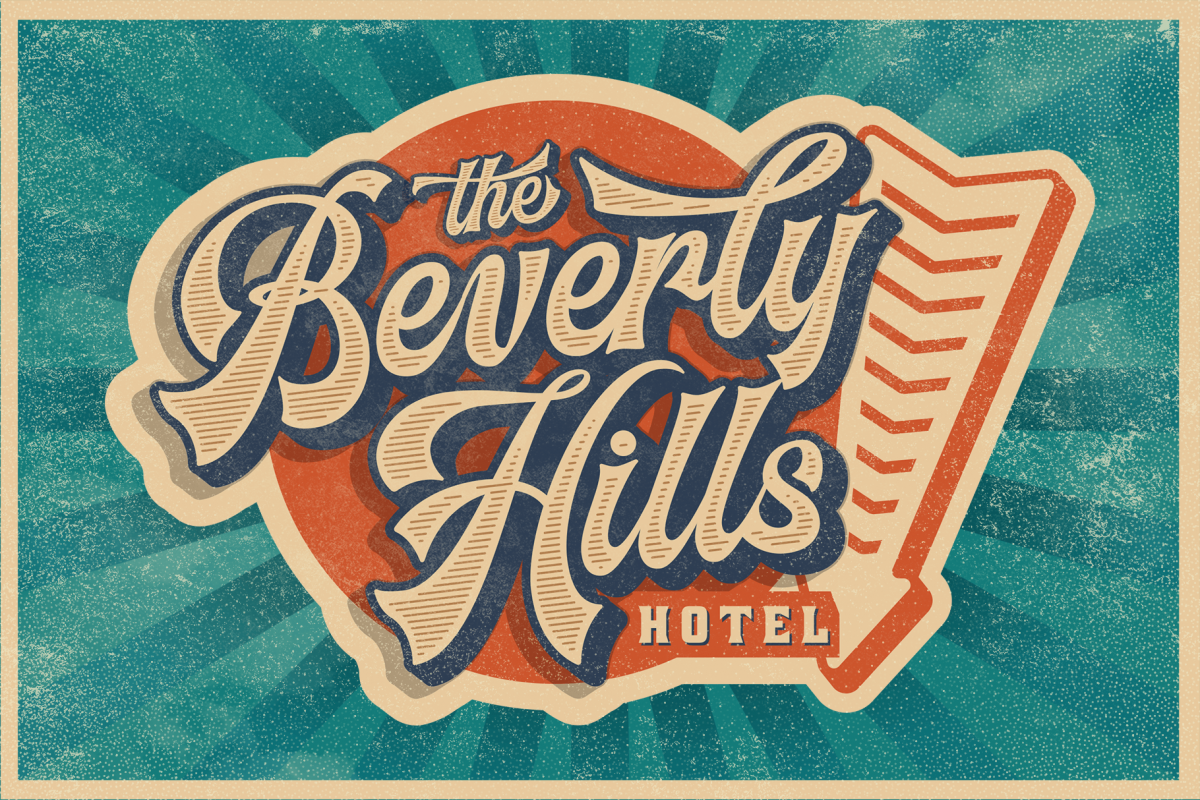
Headster Layered Family
Headster-Extrude
Headster-HalfEngraved
Headster-Regular
Headster-Shadow
Headster-FullEngraved
Introducing Headster , bold script typeface that inspired by vintage label designs. Come up with layered system, 05 fonts total. With many alternate characters option to play. You can mix and match your best combination. With all those things we mention about, this font is perfect for your many design projects, such as Flyer, Logo Design, Badge, Packaging, Invitation and more.